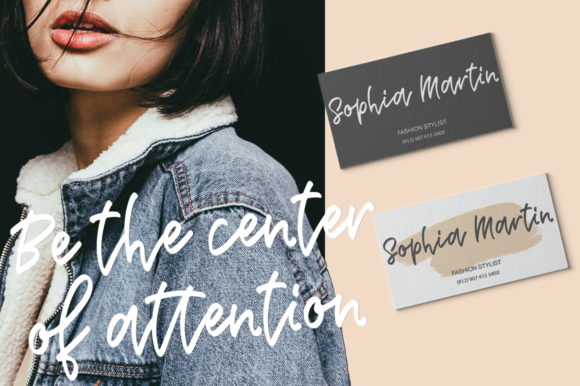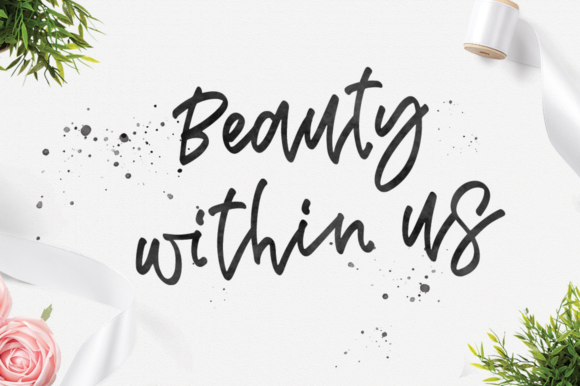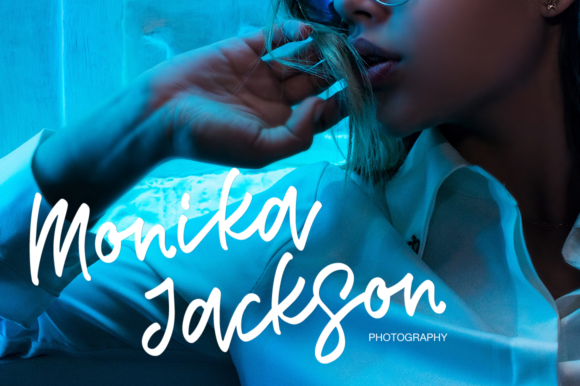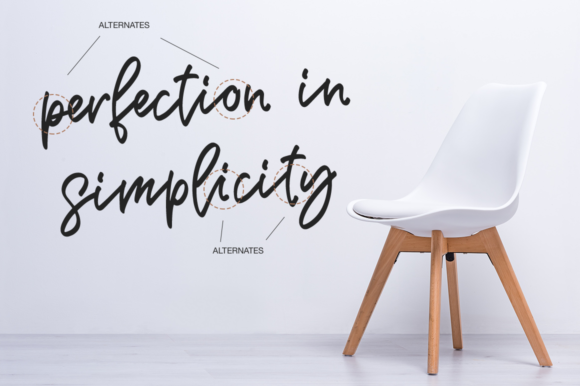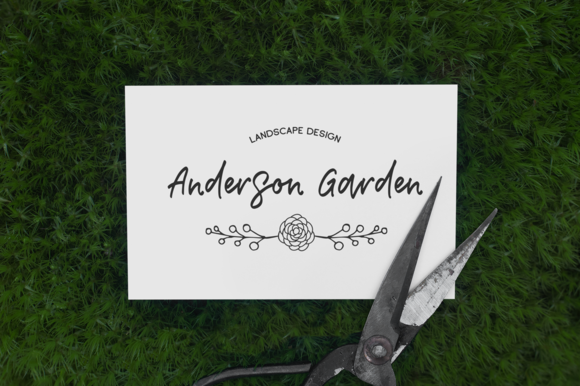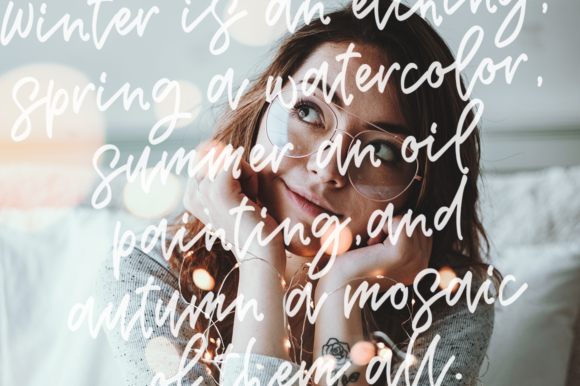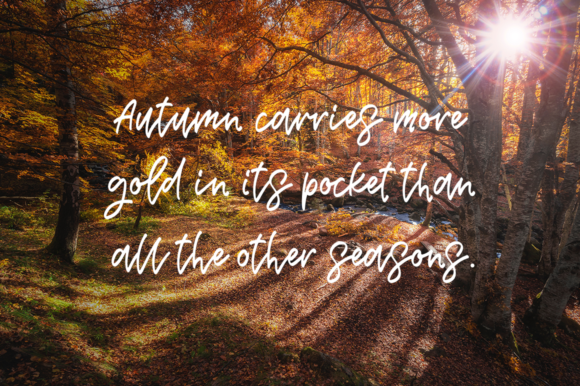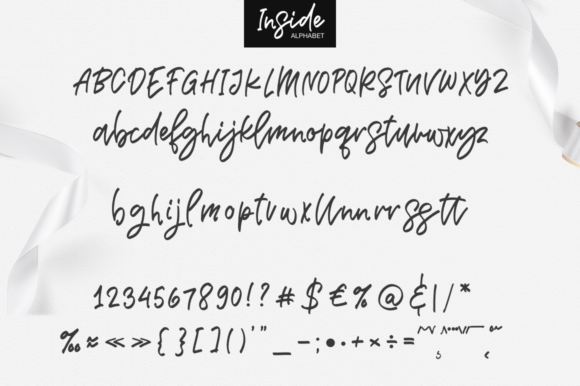
HomeScript FontsInside Font Script Fonts Inside Font FacebookXPinterestWhatsApp Inside Font Poster 2 Inside Font Poster 3 Inside Font Poster 4 Inside Font Poster 5 Inside Font Poster 6 Inside Font Poster 7 Inside Font Poster 8 Inside Font Poster 9 About Inside Font The Inside is a handmade script with a casual look. It’s ideal for branding and decorating your designs. DOWNLOAD ON CREATIVE FABRICAThis font is sold and delivered by Creative Fabrica. Font Canyon may earn a commission if you buy through this link. People also explored Craftsman Font Spring Easter Coffee Mug Mockup Saio Font Sunflower Font Chortle Font Daylight Font Dogs Font Milton Keynes Font Alexandra Font 326 0 TagsInside Font Previous articleGirlstory FontNext articleHenrietta Font LEAVE A REPLY Cancel reply Comment: Please enter your comment! Name:* Please enter your name here Email:* You have entered an incorrect email address! Please enter your email address here Website: Save my name, email, and website in this browser for the next time I comment. Personal Use Free Roustel Personal Use Free Read more about this font Engine Personal Use Free Read more about this font Nottingsam Personal Use Free Read more about this font Peristiwa Font Personal Use Free Read more about this font BLOG Where to Buy American Fonts Online in 2024 Where to Buy American Fonts Online: The Ultimate Guide for 2024 Looking for the perfect American font to elevate your design projects? You're in the... Free vs Paid Fonts: Why Investing in Premium Fonts Is Worth It To increase your work productivity, choose the most readable fonts. Free Fonts Risk: Why Free Fonts Can Be Dangerous for Designers